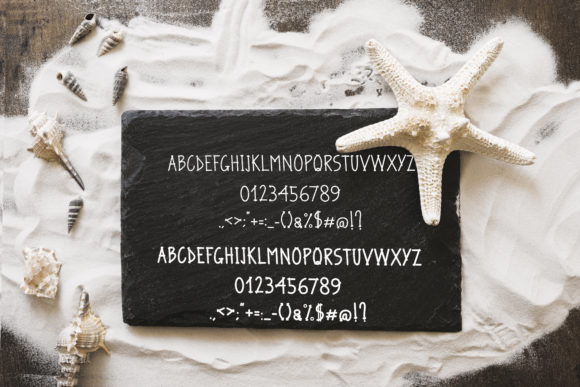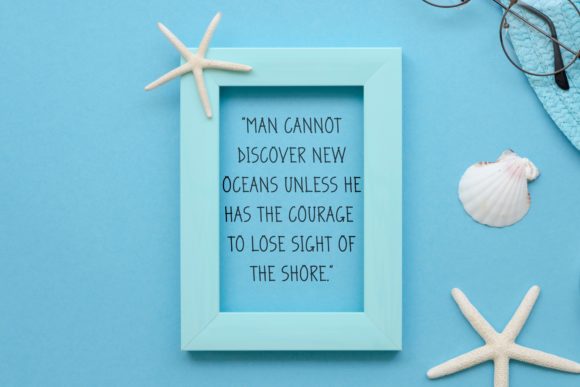
Aphitos Bundle Font
db-ku.com - Script & Handwritten -- Aphitos is a greek inspired and cool handwritten font. No matter the topic, this font will be an incredible asset to your fonts’ library, as it has the potential to elevate any creation.